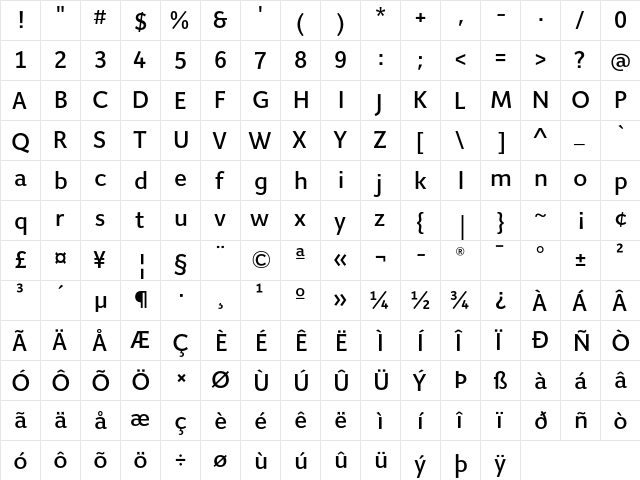
Giacomo MD Medium
| Designer | James Montalbano |
Design Context for Giacomo MD Typeface
Giacomo MD offers clean, dependable letterforms without strong stylistic allegiance, making it a practical choice for designers who need flexibility.